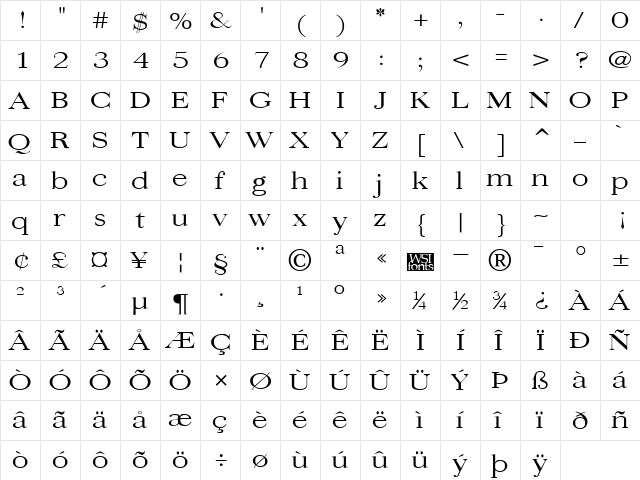
QuantasBroadLight Regular
Design Context for QuantasBroadLight Typeface
QuantasBroadLight is a composed and adaptable typeface that performs quietly and consistently across a wide range of design contexts. The delicate stroke weight brings airiness and refinement to layouts.